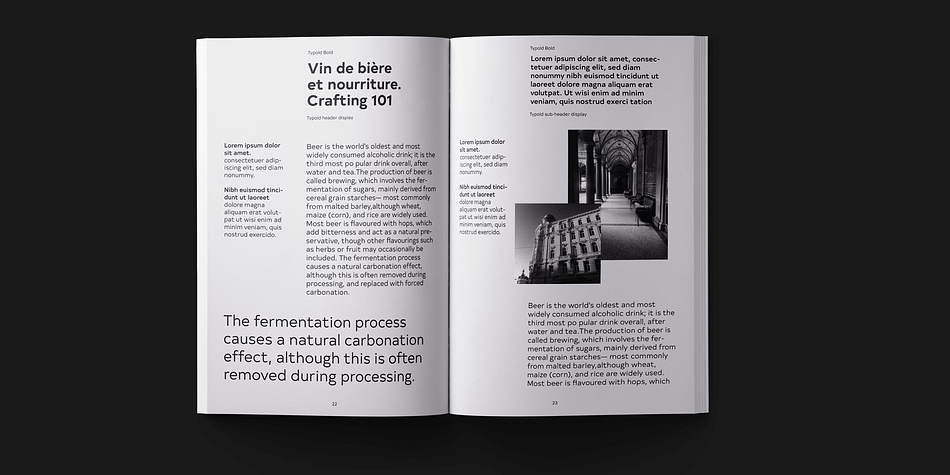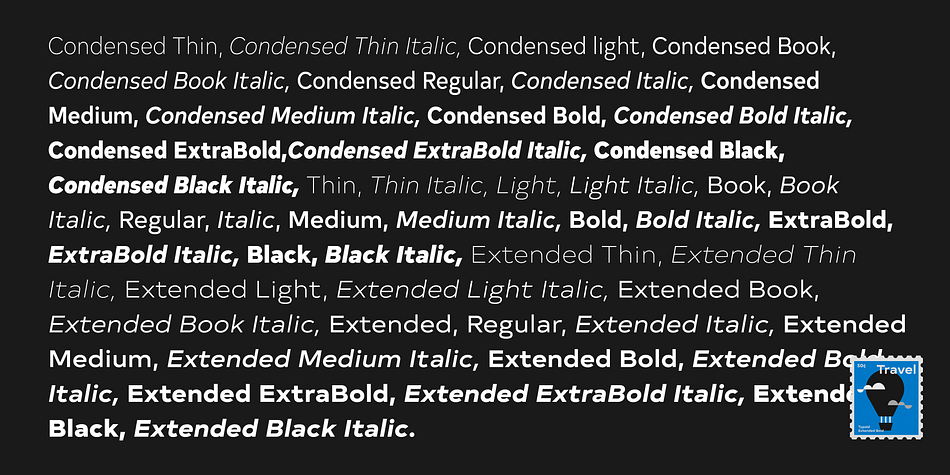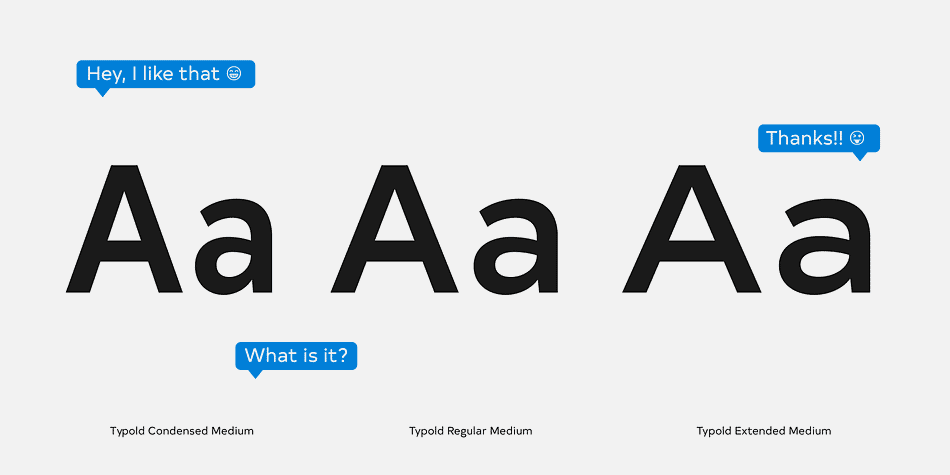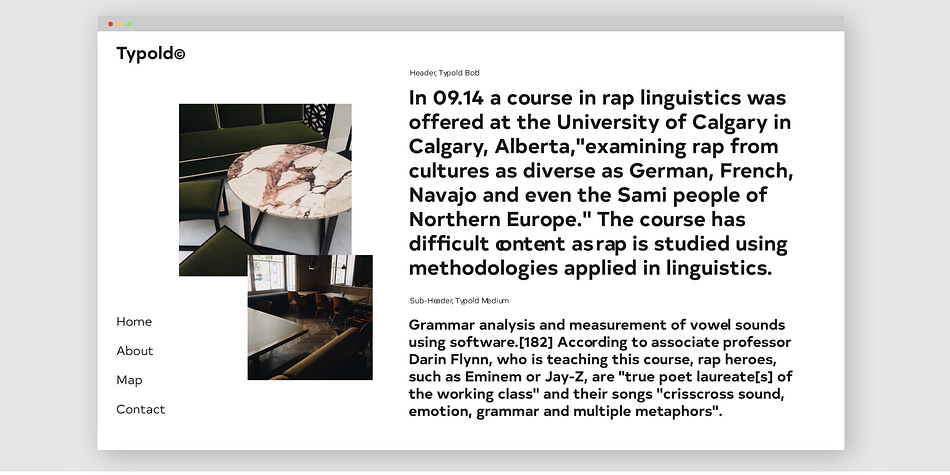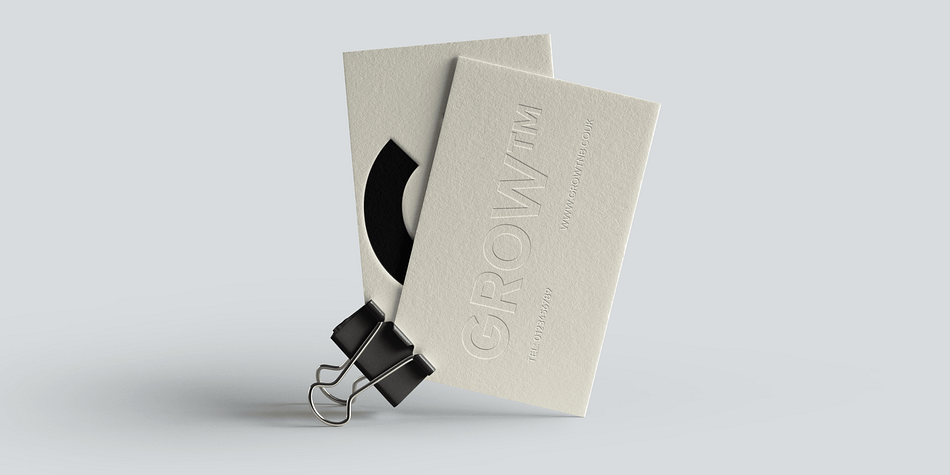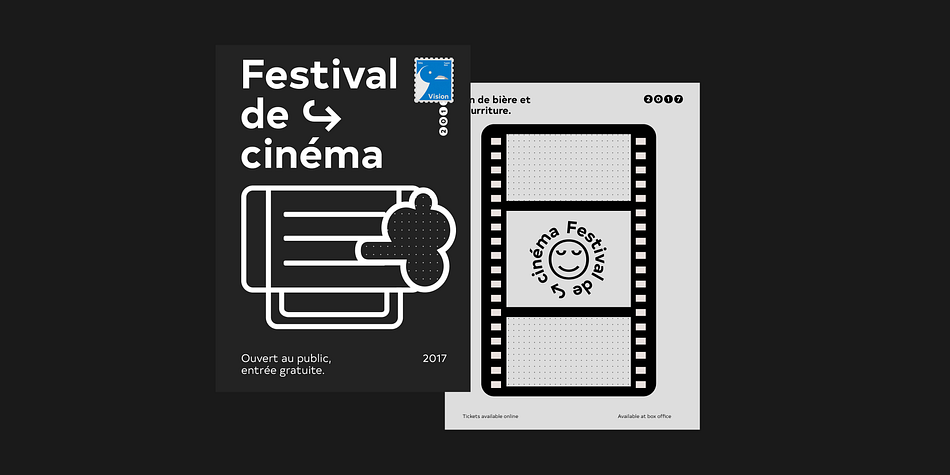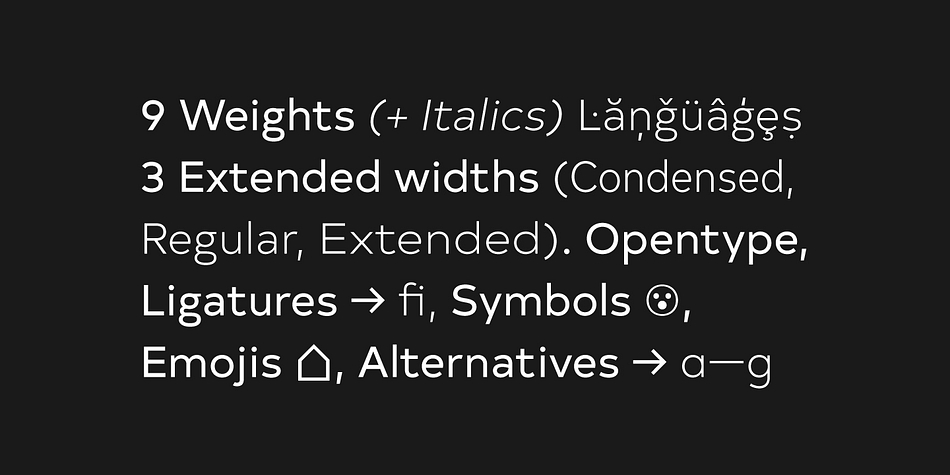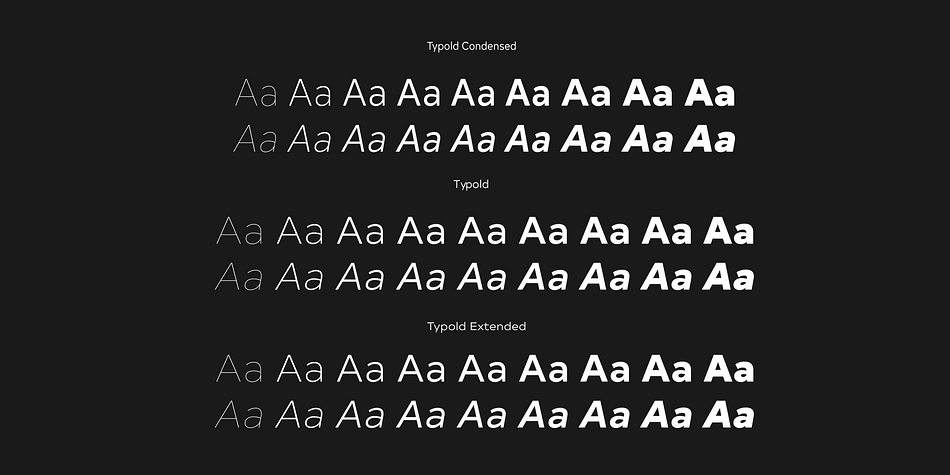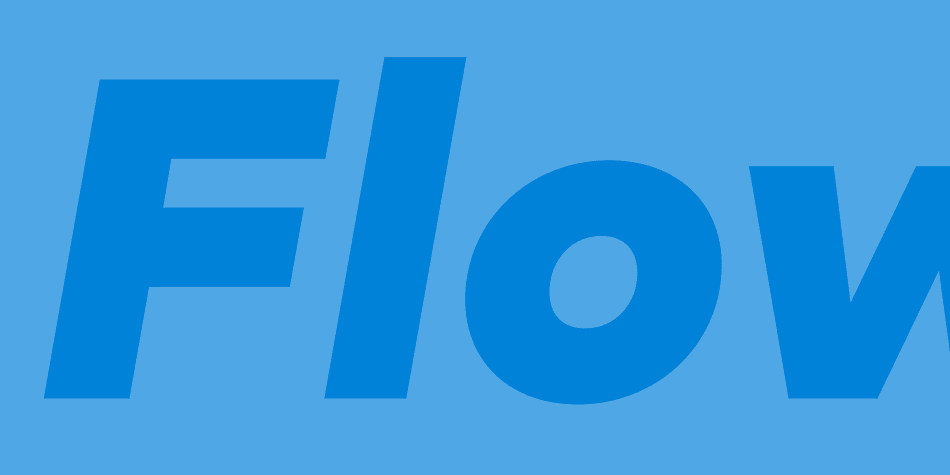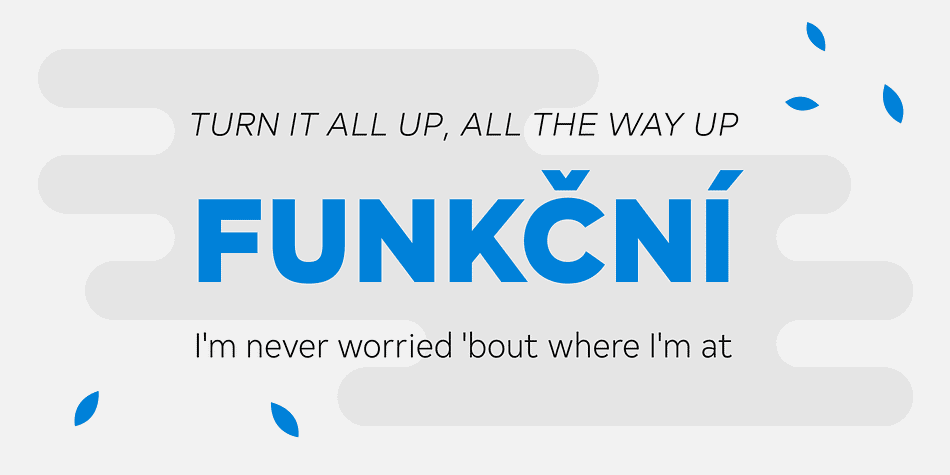
Designed by Jonathan Hill, Typold is a sans serif font family. This typeface has fifty-four styles and was published by The Northern Block.
Typold originated out of the desire to improve, geometric forms and push beyond previous achievements through collaborative working methods and knowledge sharing. The result is a finely balanced modern sans serif constructed from mathematical inputs, typographers needs, and the natural hand and eye of an artisan.
Details include nine weights and matching italics, three separate widths, 1000 characters with an alternative lowercase a and y, small-caps, 12 variations of numerals, Opentype features inferiors, superiors, fractions, case sensitive punctuation, extended symbols including emoji’s and language support covering Western, South and Central Europe.